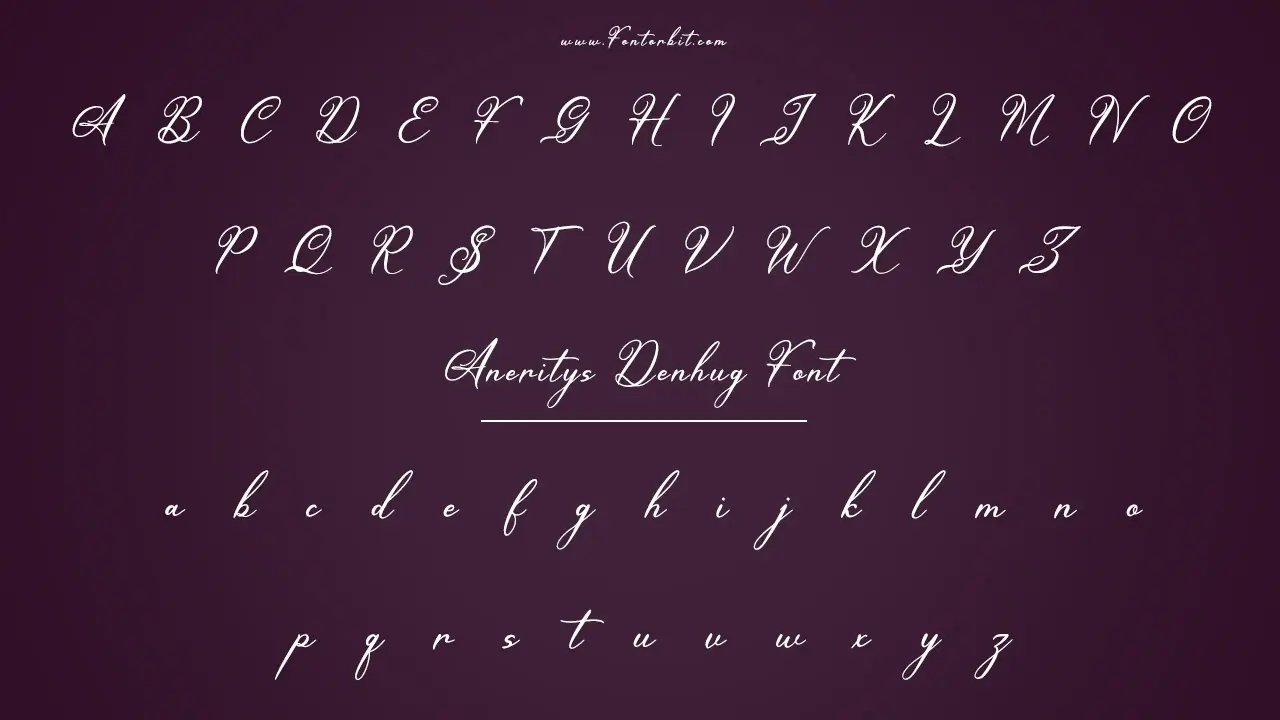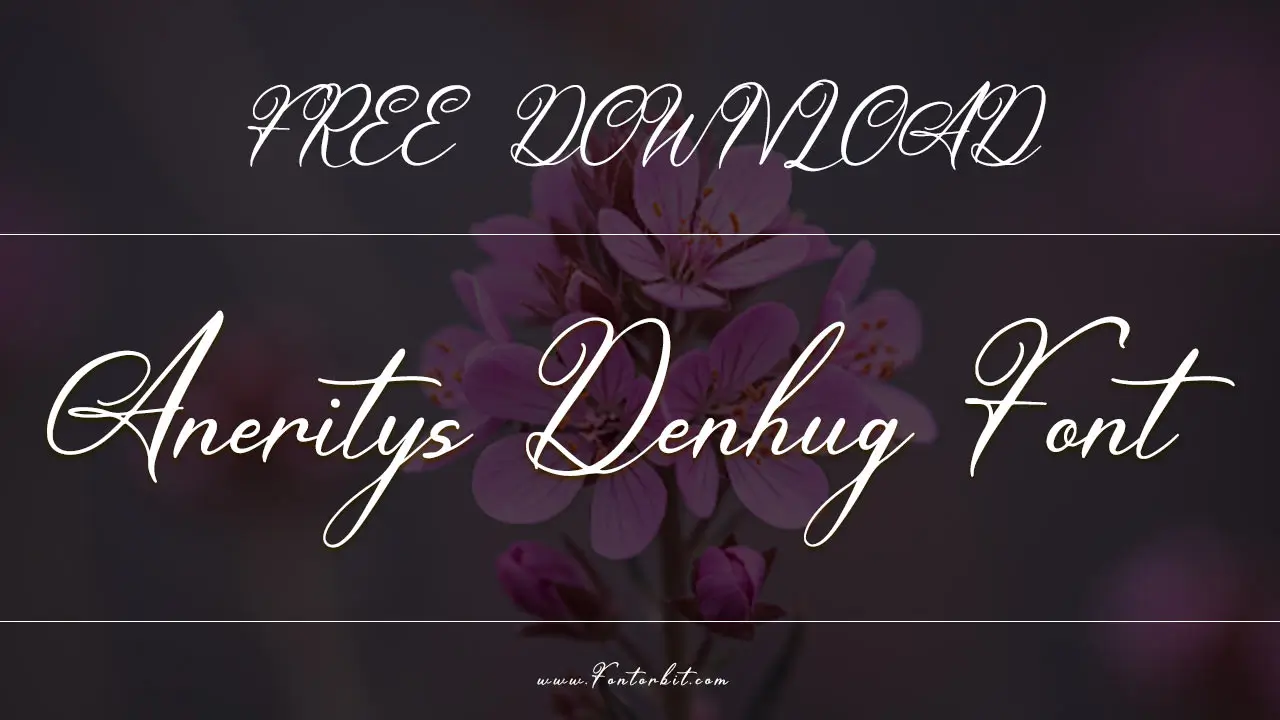
The Aneritys Denhug Font is a modern calligraphy typeface known for its elegance and versatility. Designed by Dede Nugraha and published by Denustudios, whether you need a refined script for branding, personal projects, or special events, this font offers a sophisticated handwritten touch that enhances any design.
Why Choose Aneritys Denhug Font?
This stylish calligraphy font is ideal for:
- Branding Projects – Logos, corporate identity, and packaging.
- Personal Use – Greeting cards, homeware designs, and photography watermarks.
- Marketing & Advertising – Posters, quotes, email campaigns, and promotional labels.
- Event Invitations – Perfect for wedding cards and name tags.
- Product Packaging – Enhances shopping bags, book covers, and custom mugs.
Aneritys Denhug Font Family Styles
- Aneritys Denhug Regular
- Aneritys Denhug Italic
| Style: | Calligraphy |
| Font Type | Calligraphy, Handwritten Script |
| Designer | Dede Nugraha |
| Publisher | Denustudios |
2.What Makes This Calligraphy Font Unique?
It offers a refined handwritten style, perfect for branding and packaging.
3.Can I Use This Font For Logos And Branding?
Absolutely! It is widely used for creating sophisticated brand identities.
4.Does Aneritys Denhug Support Multiple Languages?
Yes, it includes multilingual character support.
5.What Design Projects Can Benefit From This Font?
Ideal for book covers, posters, invitations, shopping bags, and marketing materials.
6.Are There Any Similar Alternatives?
Yes, there are other handwritten script fonts, but Aneritys Denhug stands out for its elegance and readability.
7.Can I Use This Font For Social Media Graphics?
Yes, it is perfect for stylish social media posts, quotes, and branding visuals.